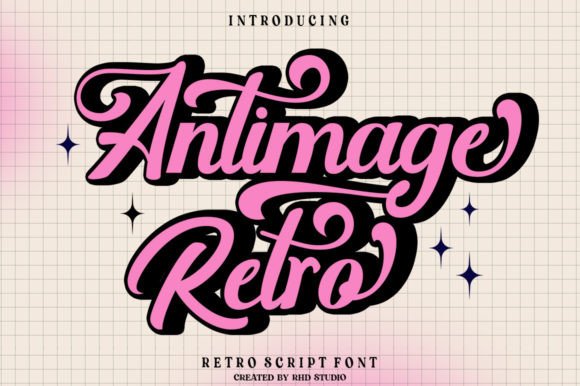
Are you ready to take your designs back in time? Introducing Antimage Retro, the best font for small displays that effortlessly combines the charm of the past with a modern twist. Created by studiorhd, this bold retro script font is perfect for adding a touch of nostalgia to your creative projects.
With its timeless elegance and versatile design, Antimage Retro is a must-have for any designer looking to infuse their work with a sense of vintage allure. Its captivating and eye-catching style is guaranteed to grab attention and make a lasting impression.
But what sets Antimage Retro apart from other fonts? Its extensive collection of alternative characters allows you to truly customize and personalize your designs. Whether you're working on a logo, a poster, or a social media graphic, this font has the versatility to bring your vision to life.
Imagine the possibilities with Antimage Retro. Transport your audience to a bygone era with its elegant curves and flowing lines. Capture the essence of vintage design and evoke feelings of nostalgia. This font is the perfect companion for any project that aims to stand out from the crowd and make a statement.
So why wait? Embrace the past while embracing the future. Antimage Retro is here to take your designs on a journey through time, all while adding a modern touch. Don't miss out on this opportunity to create something truly extraordinary.